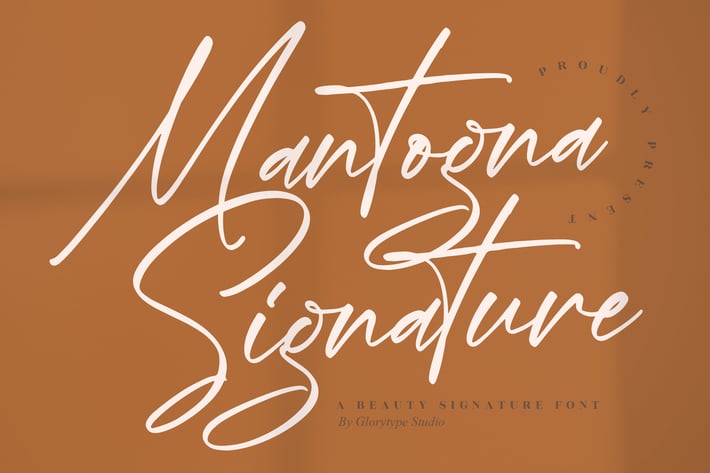
Mantogna Signature Font
Mantogna is a beauty signature script with soaring ascenders, sweeping swashes, and a silky handwritten rhythm. Its refined curves bring high-end, editorial flair to fashion branding, wedding stationery, and social media quotes—perfect wherever you want a confident, personal signature feel.
+ Elegant ligatures & stylistic alternates
+ Beginning/ending swashes for dramatic signatures
+ Clean kerning & smooth curves for polished results
+ Standard punctuation & numerals
+ Signature logos & personal branding
+ Fashion/beauty packaging & labels
+ Wedding suites (invites, menus, place cards)
+ Social media posts, quotes & highlight covers
+ Magazine covers & editorial spreads
+ Blog headers & website hero text
+ Business cards & thank-you cards
+ Photo watermarks & lookbooks
Sign your brand with effortless elegance.